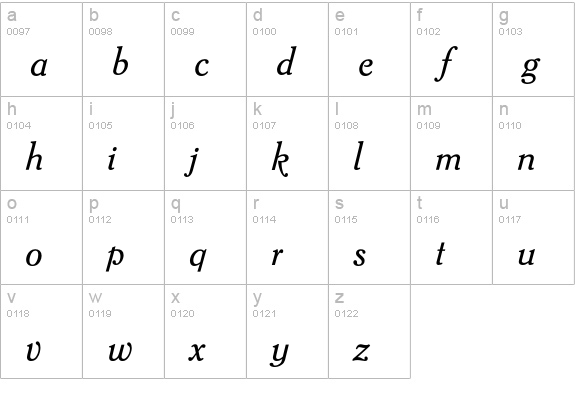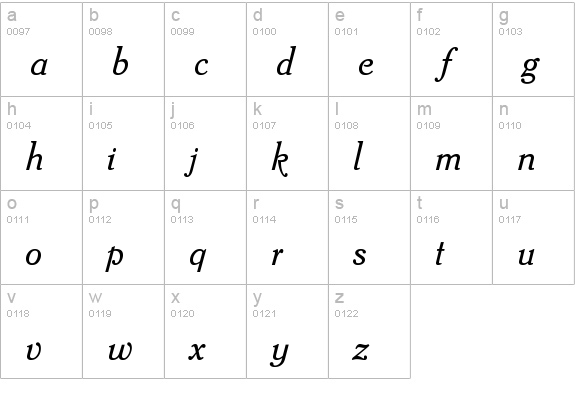
Cheltenham ATF Old Style Italic Font Details
Cheltenham ATF Old Style Italic is a distinctive, italic variant in the Cheltenham typeface family \xE2\x80\x94 well suited to design and typography projects.
Cheltenham ATF Old Style Italic font is a timeless and elegant typeface that exudes sophistication and class. With its gracefully slanted italics and classic design, this font is perfect for adding a touch of refinement to any project. Whether you're designing invitations, creating branding materials, or crafting editorial layouts, Cheltenham ATF Old Style Italic font will elevate your work to the next level. Best of all, this exquisite font is available for free download at FontsMarket.com. So you can easily access this premium typeface without any cost, making it a valuable addition to your font collection. Don't miss out on the opportunity to enhance your designs with the beauty and versatility of Cheltenham ATF Old Style Italic font. Download it today and see the difference it can make in your projects.